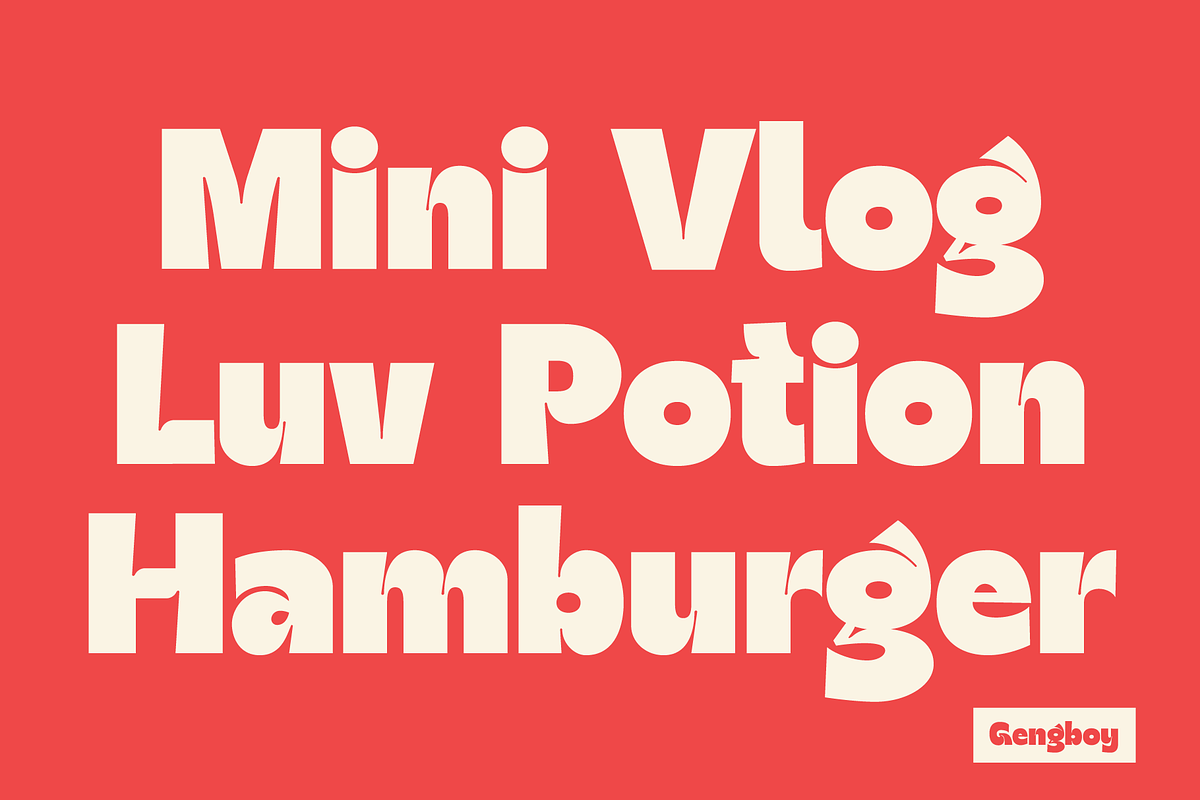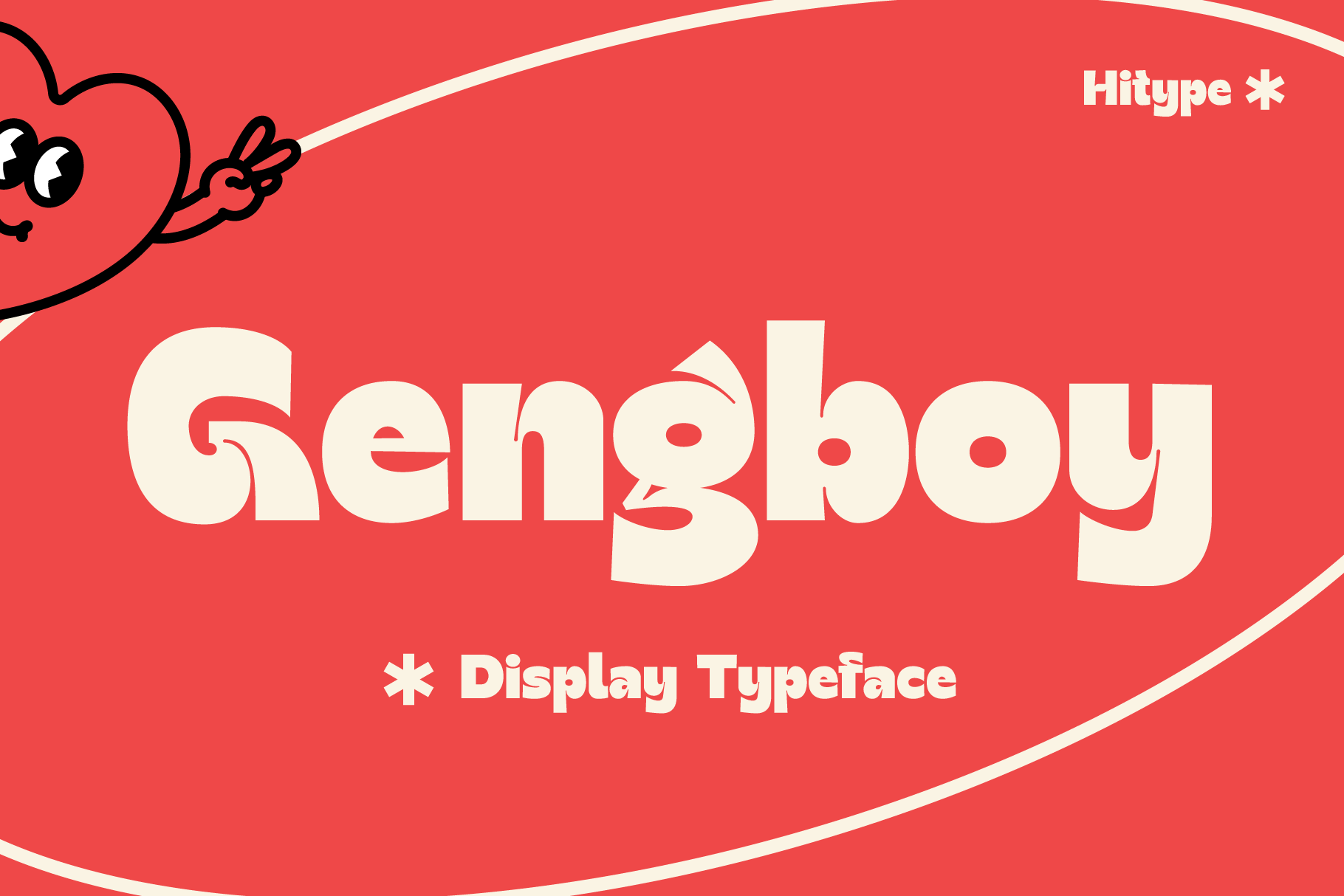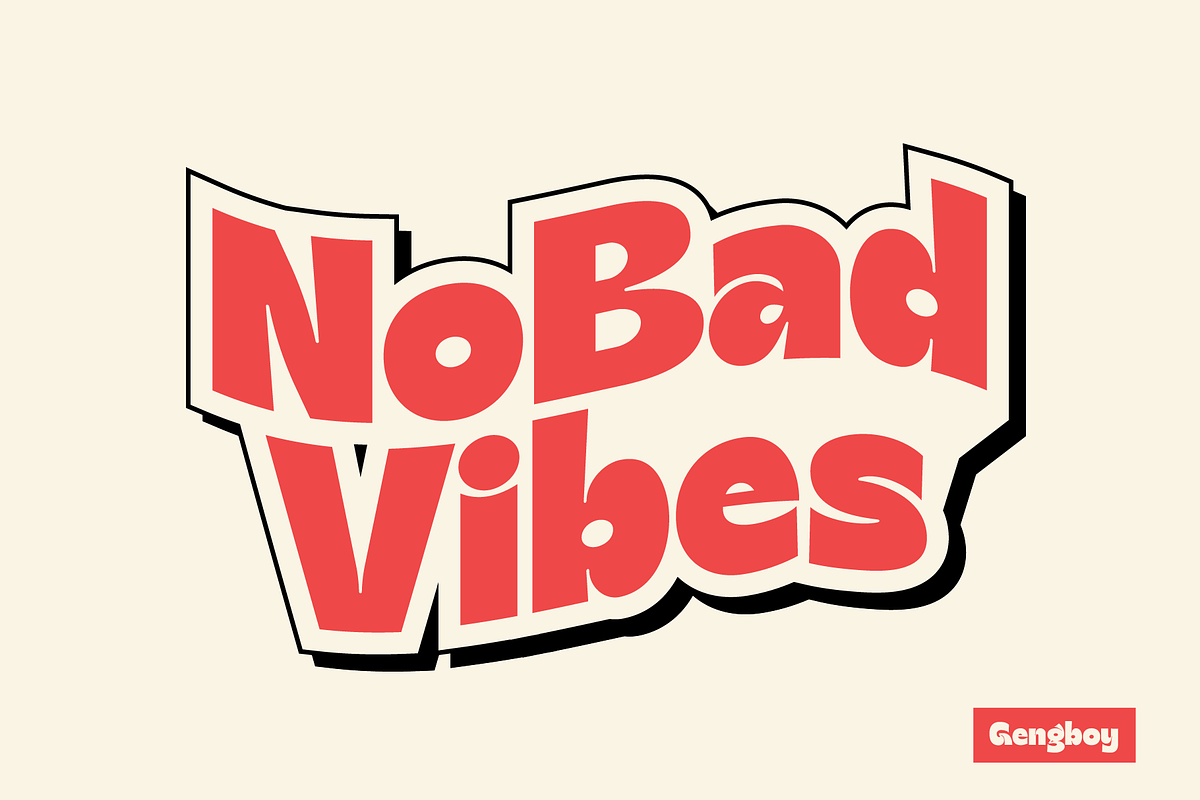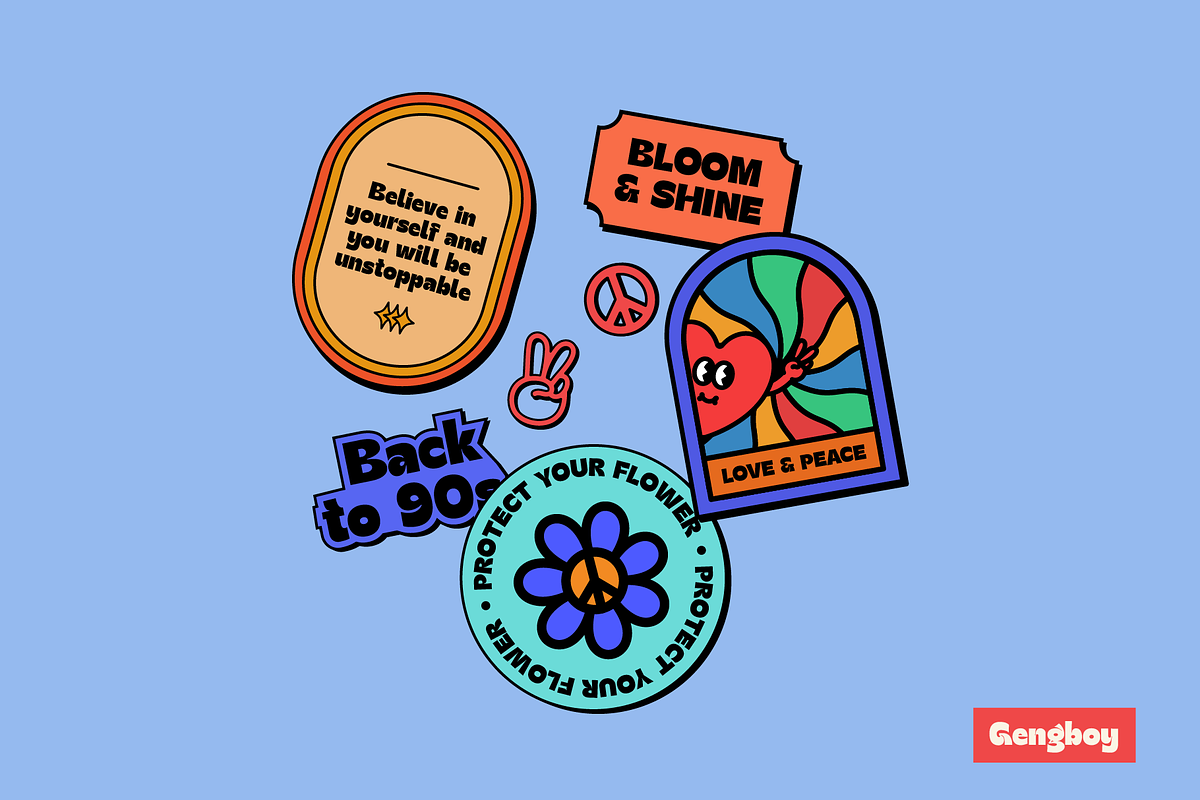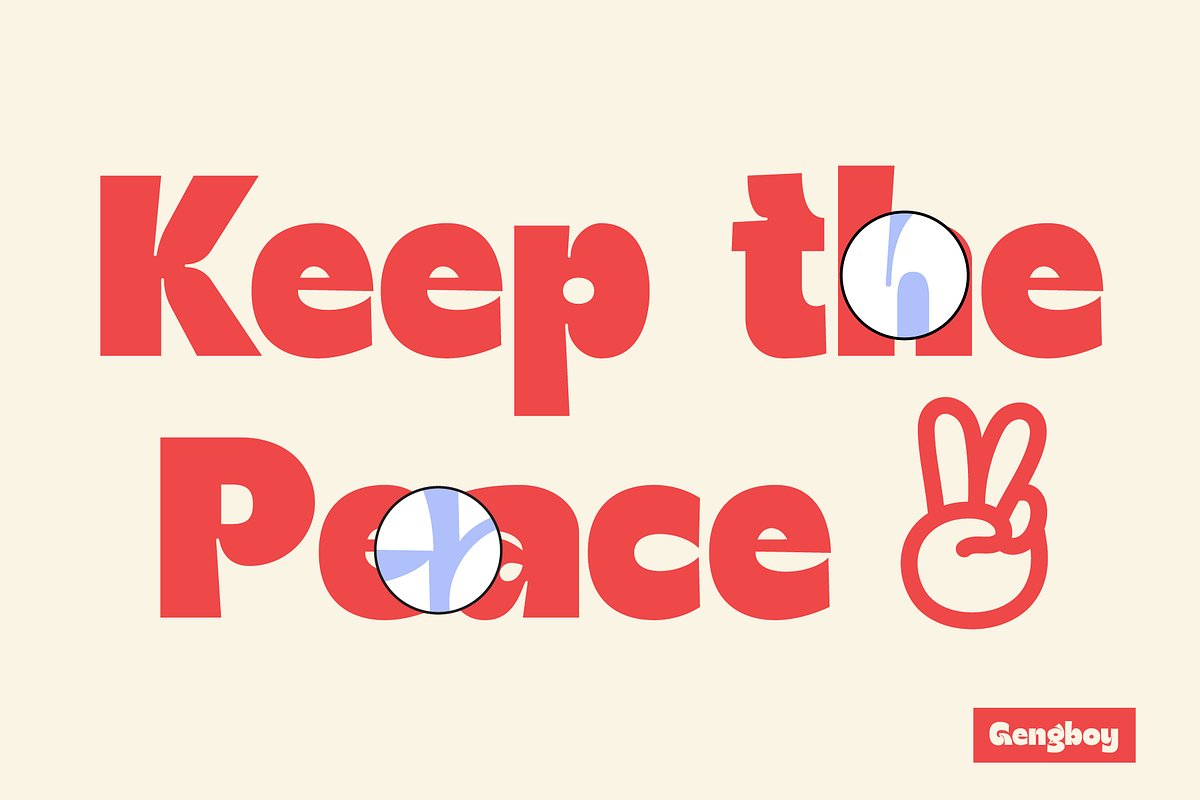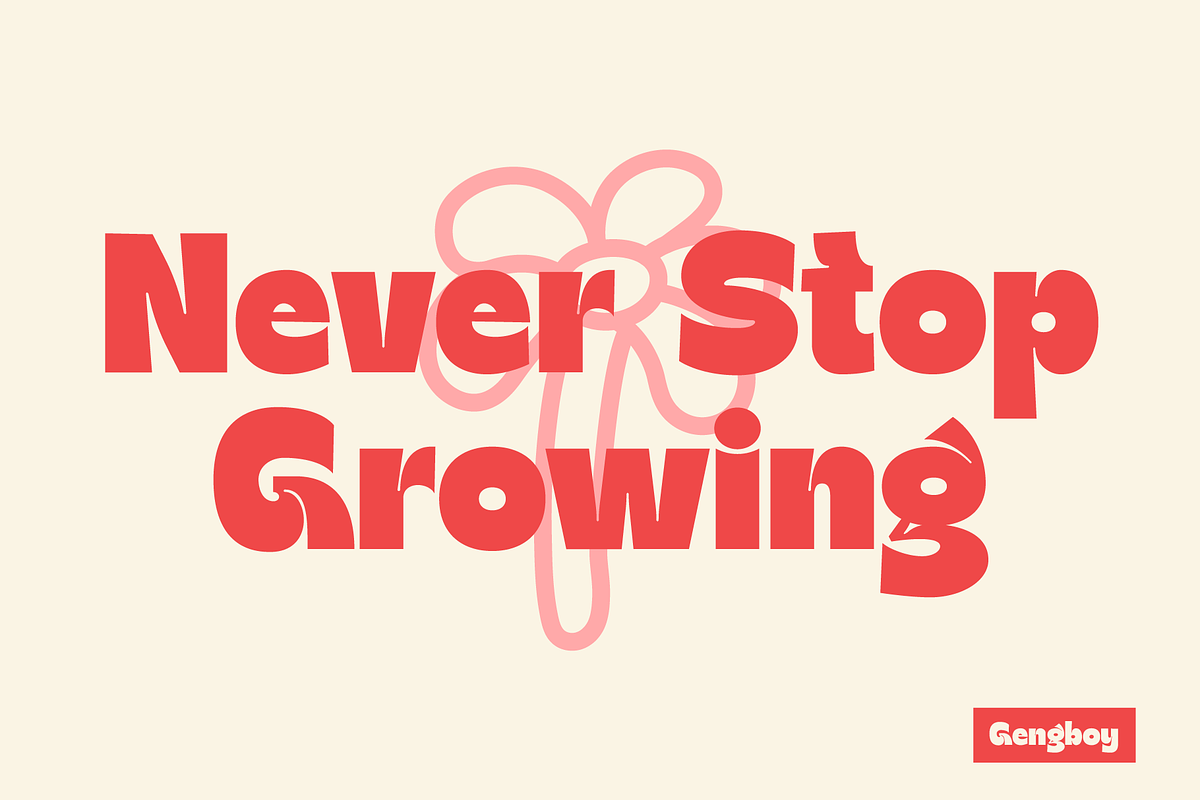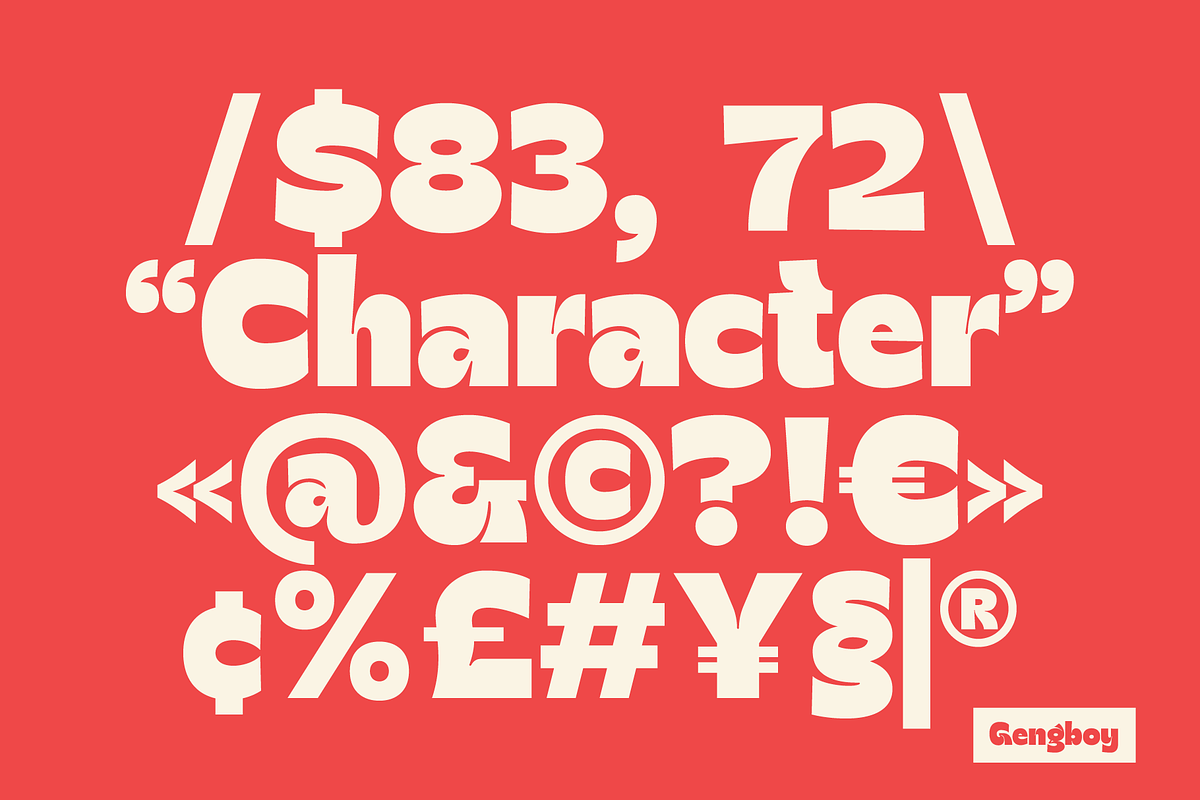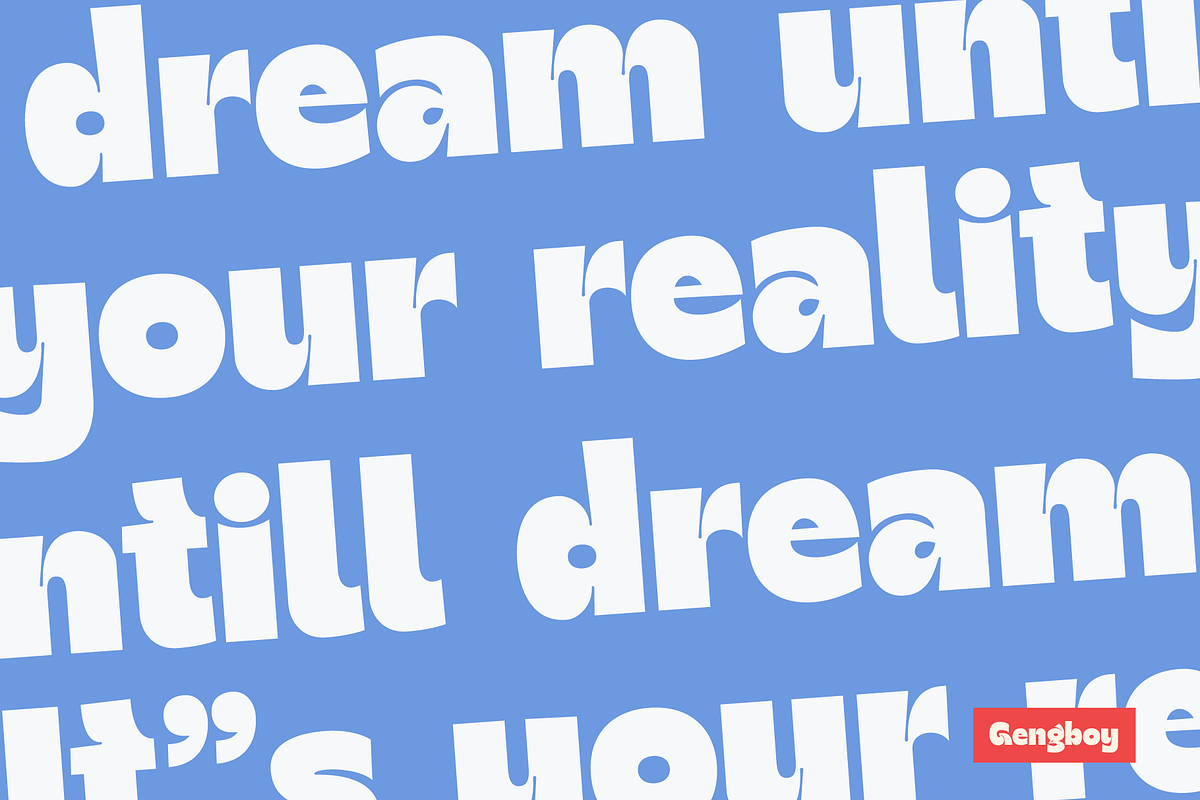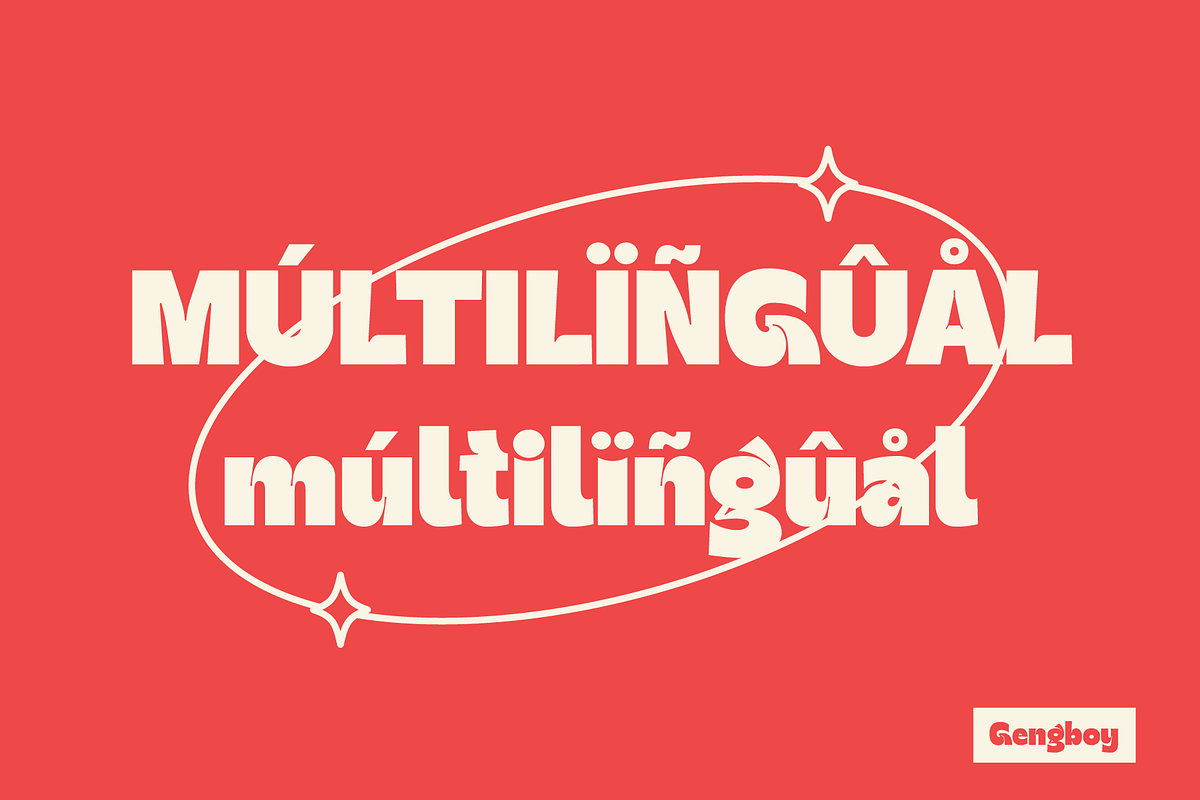
Gengboy is a playful bold sans serif display typeface with quirky details and retro charm. Designed to bring joy and personality, it’s perfect for stickers, posters, logos, packaging, branding, and any project that needs a fun and standout touch. With its cheerful look, Gengboy adds a vibrant voice to both print and digital designs.
Features: Uppercase & lowercase letters - Numbers & punctuation - Multilingual support - Open Type - Bold playful style with retro character shapes - Perfect for logos, posters, packaging & display use